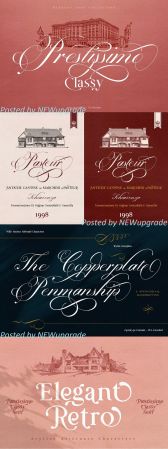
Prestissimo Classy is a combination font package between copperplate script and retro serif style. A perfect combo for you who need elegant, stylish, retro, casual & professional look on the same plate.
Save your priceless time with the best solution! The easiest way to bring professional calligrapher, Penmanship or spencerian script. Now you have this unique opportunity to try the early American handwriting. Really bring classy vibes & easy to use, Hundred of possibility looks. Powered with opentype features & PUA encoded.
Our Prestissimo Classy is feature with contextual alternates and stylistic sets to broaden your possibilities - Common and extended ligatures are included. The set is supplemented by flourish ornaments to round out your design.